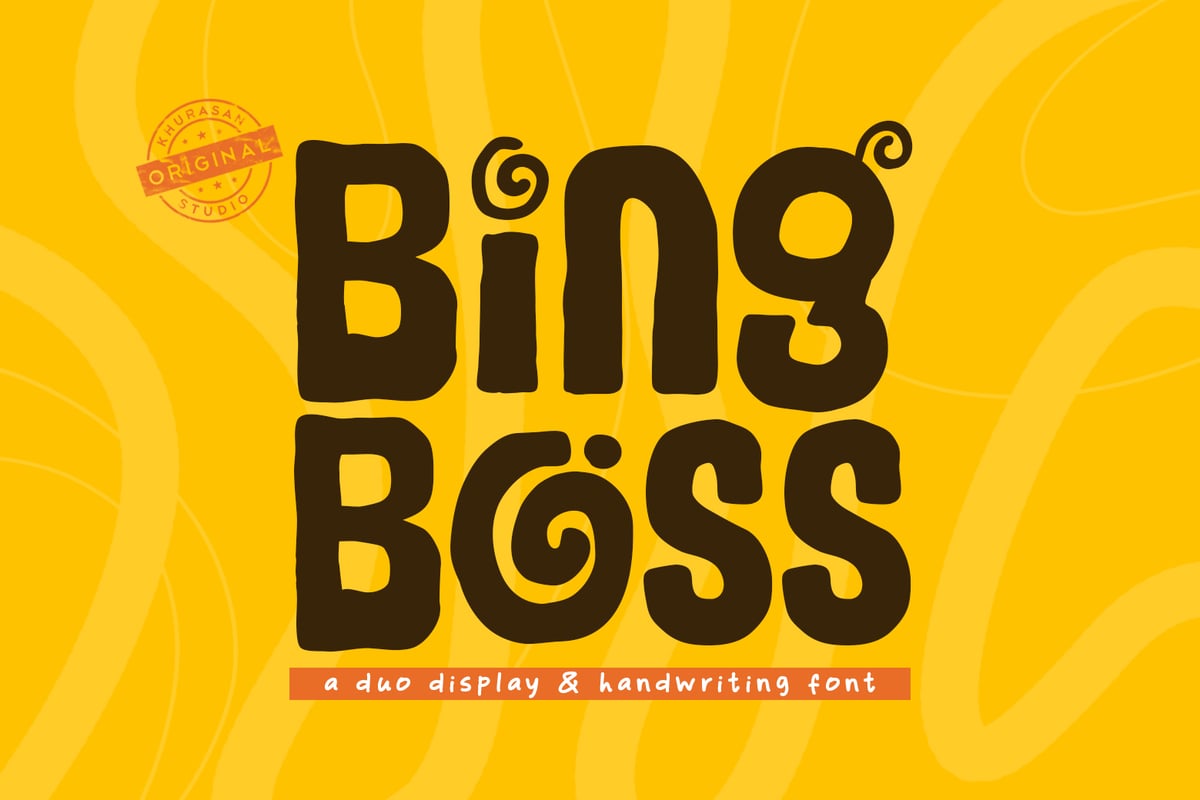
Bing Boss - Cozy & Display Font
Bing Boss is the bold, bubbly duo font that makes every design instantly more fun and full of personality.
Combining a chunky, expressive display style with swirl accents and an organic handwritten companion, Bing Boss delivers an eye-catching contrast that grabs attention right away. Its playful shapes, thick cutouts, and handcrafted feel make it perfect for designs that need to feel friendly, vibrant, and approachable.
Best Used For:
- Children's book covers, comics, and story illustrations
- Food and beverage packaging, snack branding, and cartoon logos
- Apparel, kids' t-shirt graphics, and merchandise
- YouTube thumbnails, social media posts, and sticker designs
- Greeting cards, birthday invitations, and festive party supplies
Add a bold splash of fun and joy to your typography collection with Bing Boss!